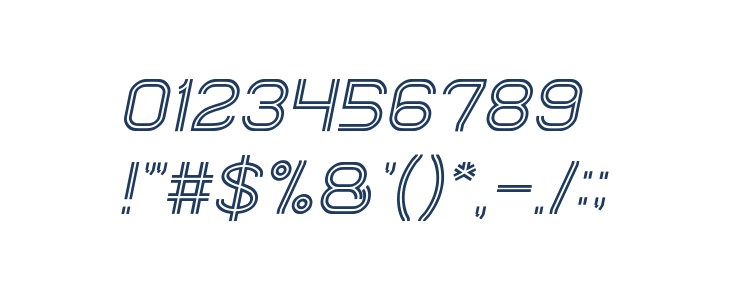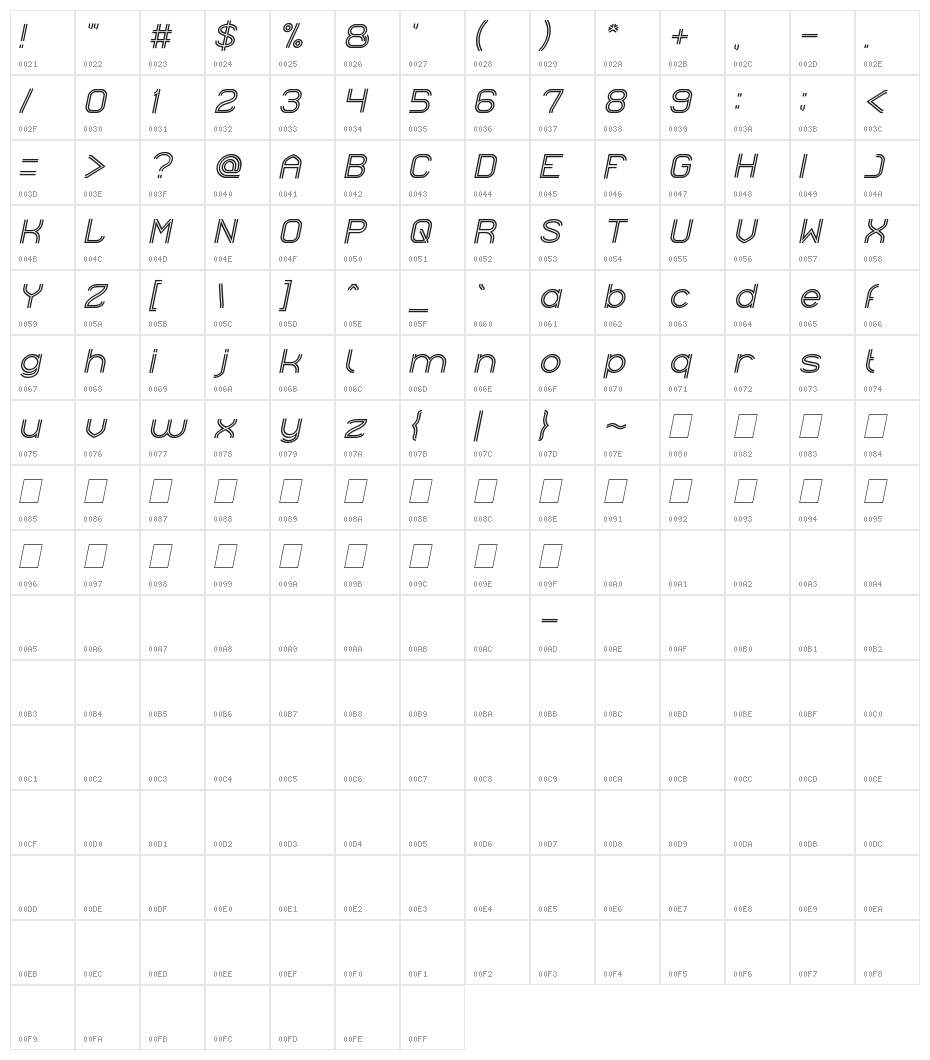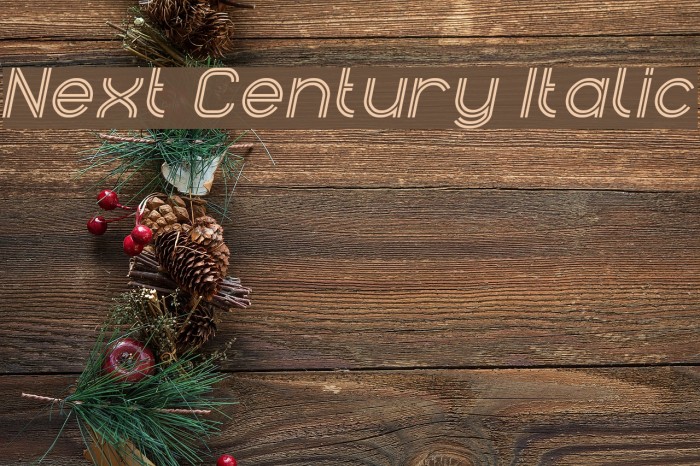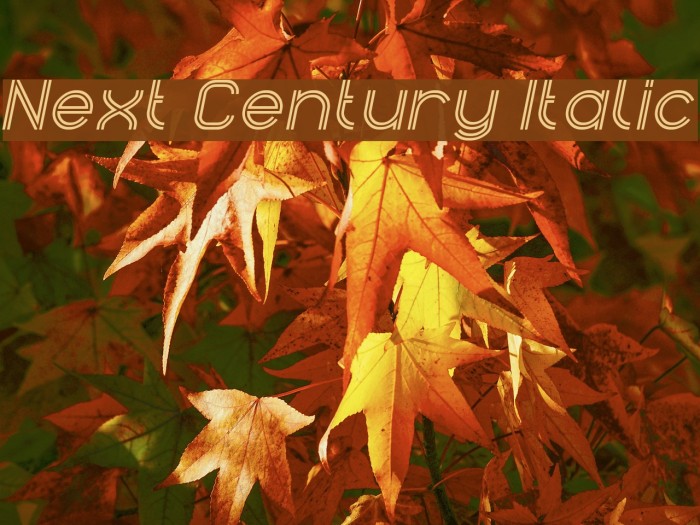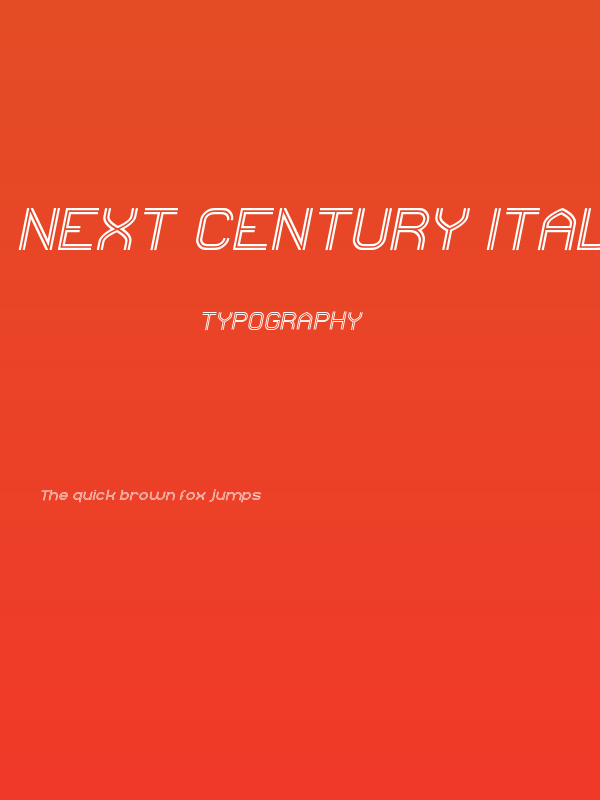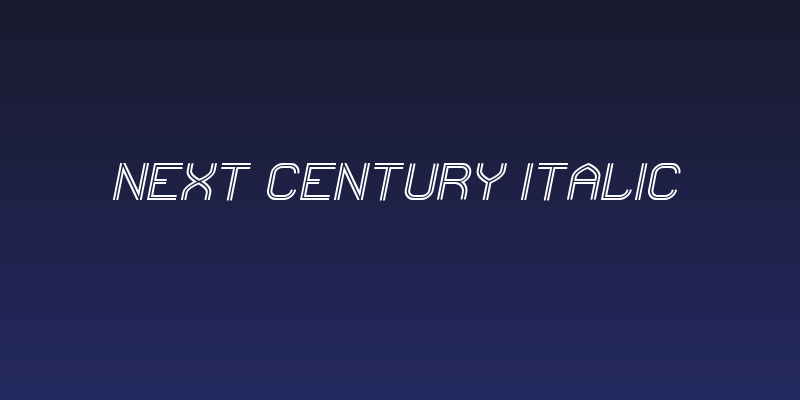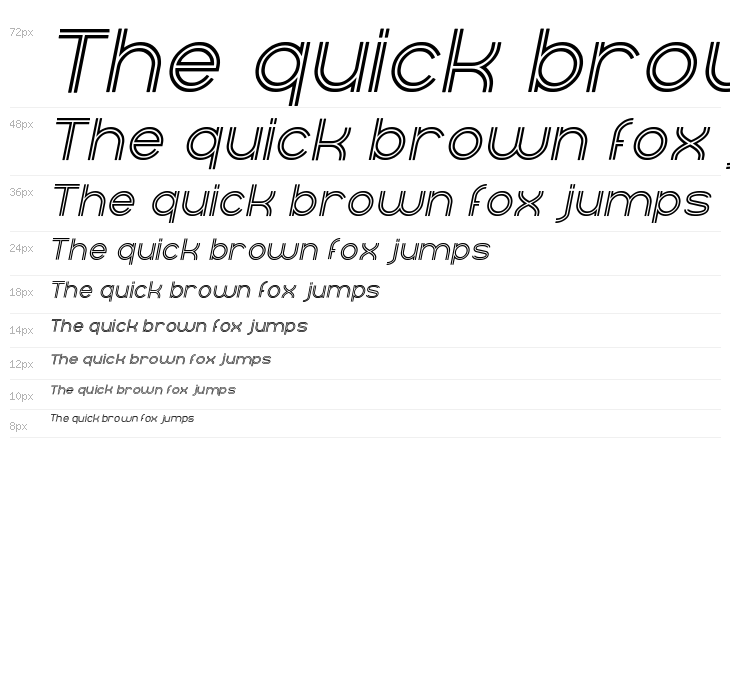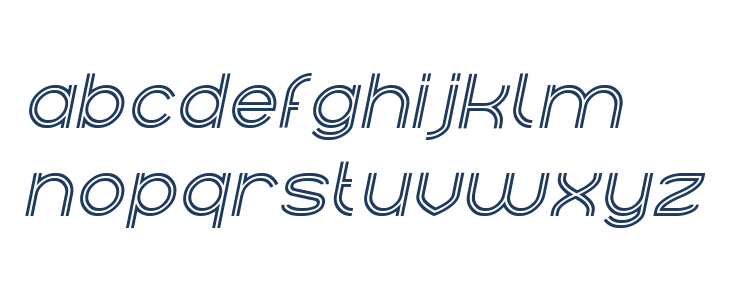
Next Century Italic Font
Next Century Italic Description
This font features a futuristic and dynamic design with a distinct italic slant. The characters are outlined with a double-line effect, giving them a three-dimensional appearance. The uppercase and lowercase letters maintain a consistent style, with rounded edges and a geometric structure. The numerals and special characters are crafted to match the overall aesthetic, ensuring a cohesive look across all text. The font's unique style makes it suitable for modern and tech-oriented designs, providing a sense of movement and innovation.
| Proposed Projects | Ideal for technology branding, sci-fi posters, video game titles, and modern advertising. |